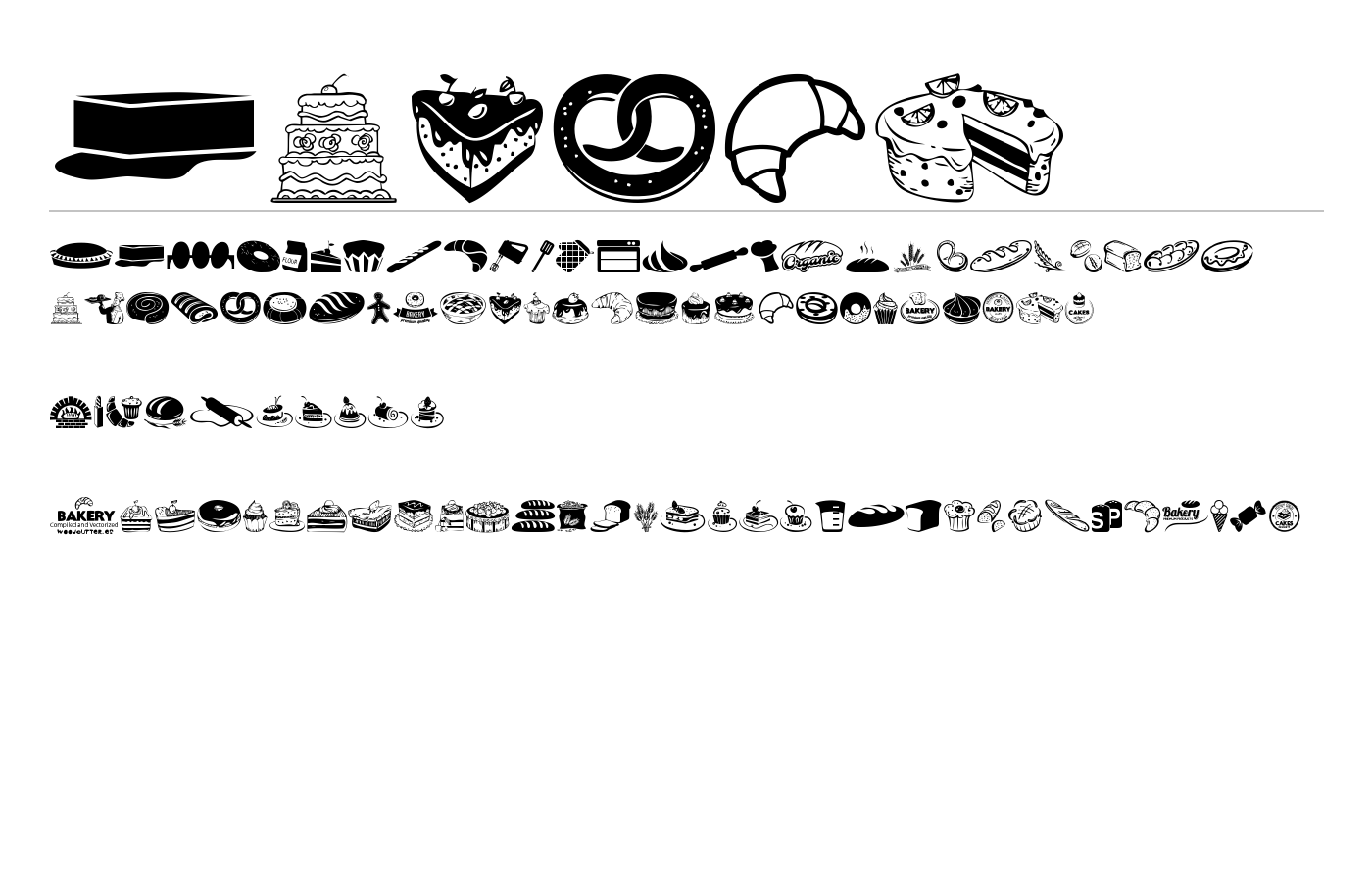
Bakery Font is a charming, playful icon font filled with beautifully detailed bakery-themed symbols, perfect for adding a warm, artisanal touch to your designs. Its black-and-white, silhouette-style illustrations of cakes, breads, pastries, and baking tools work well for branding, packaging, and menus in the food and hospitality industry where a cozy, handcrafted feel is desired. This font’s versatile and clear icons make it ideal for use in both print and digital media to create engaging, friendly visuals.
Bakery Font
About Bakery Font